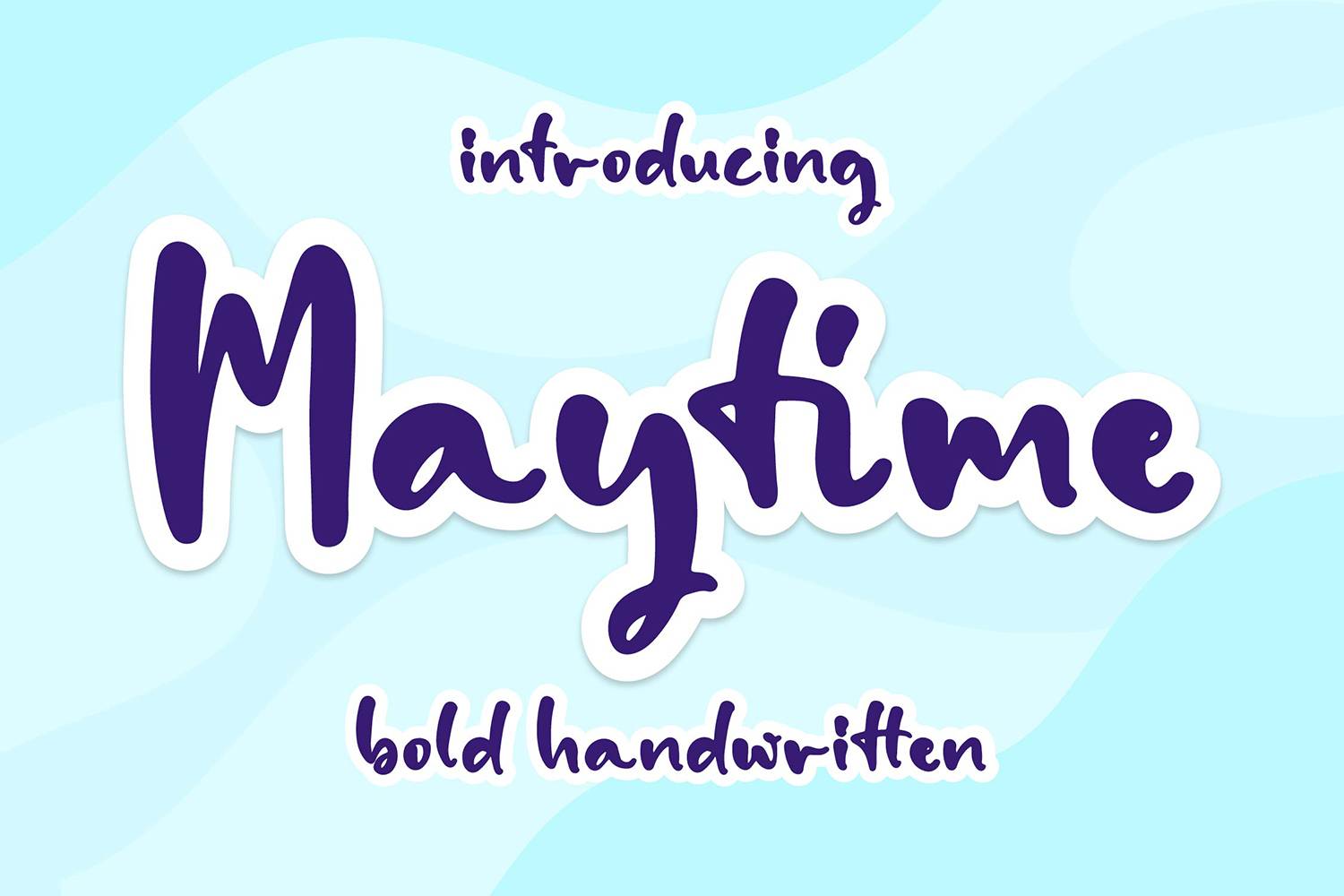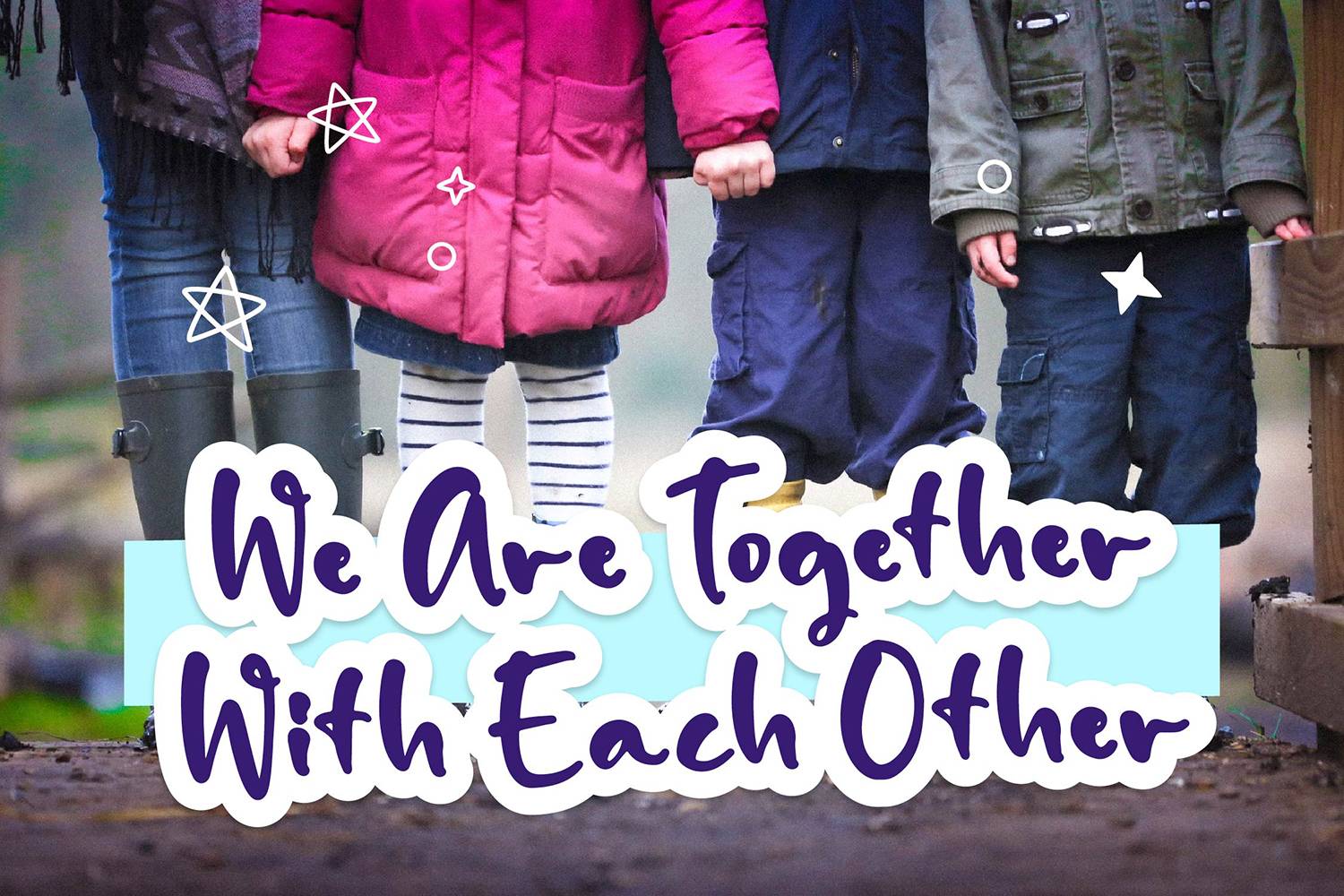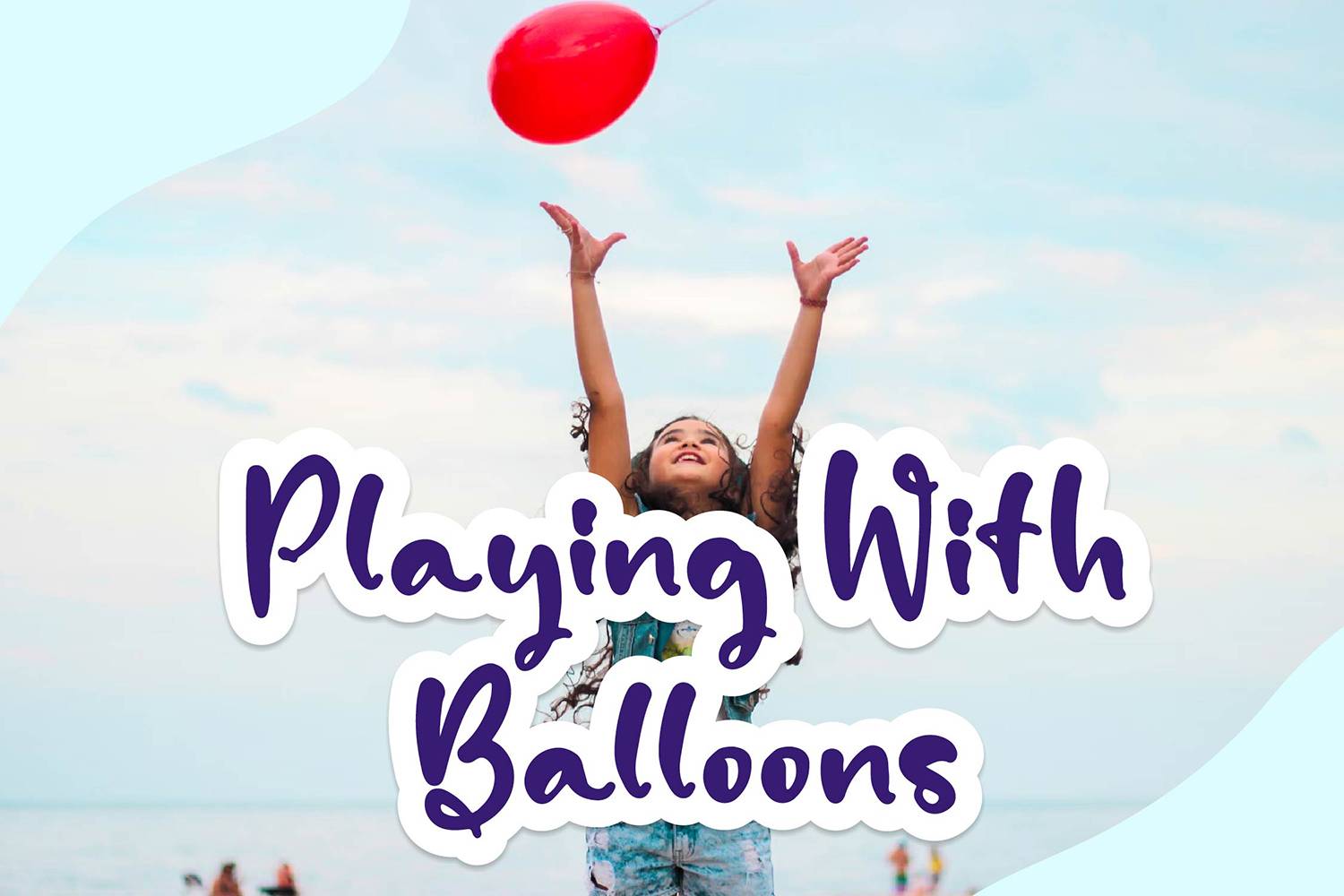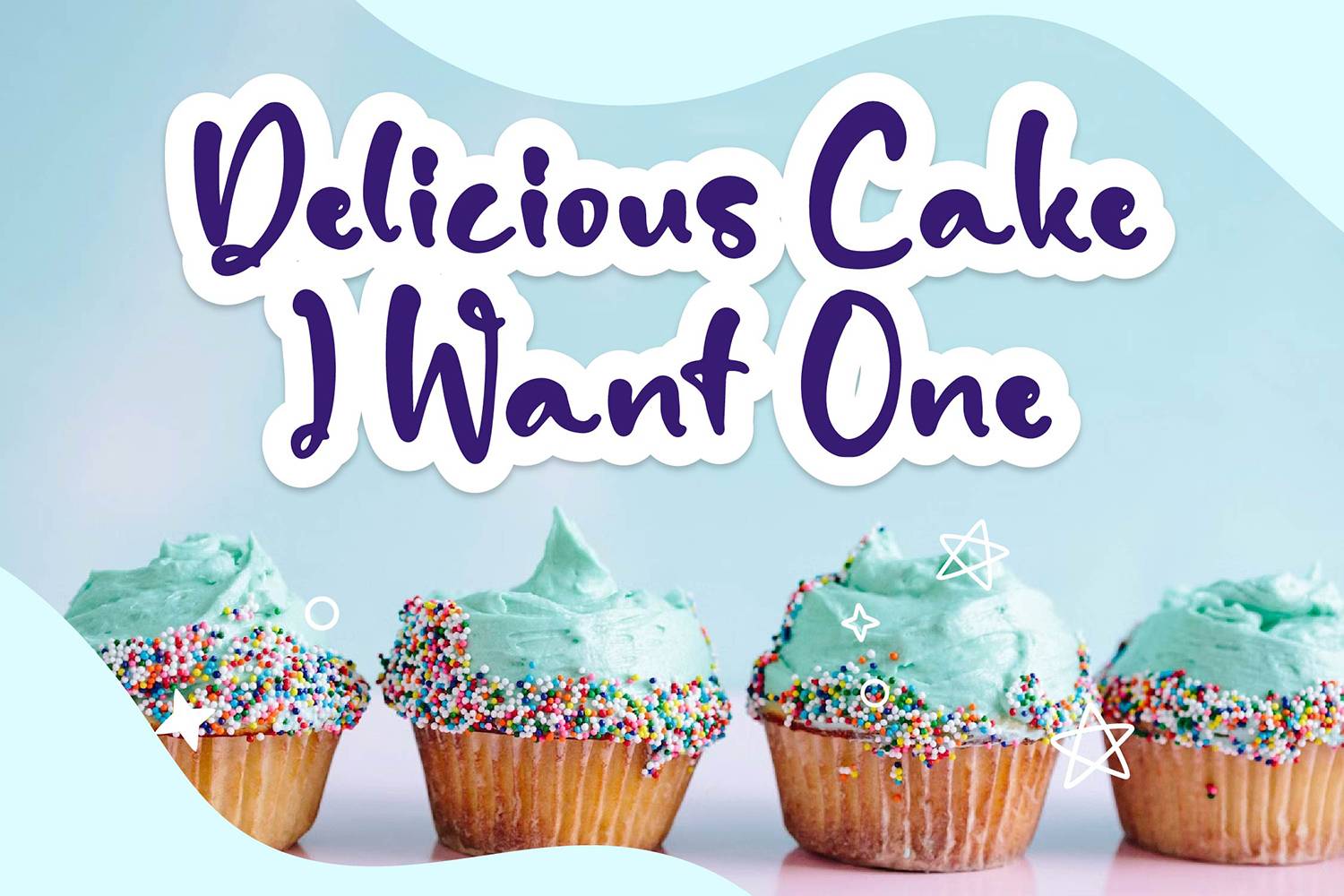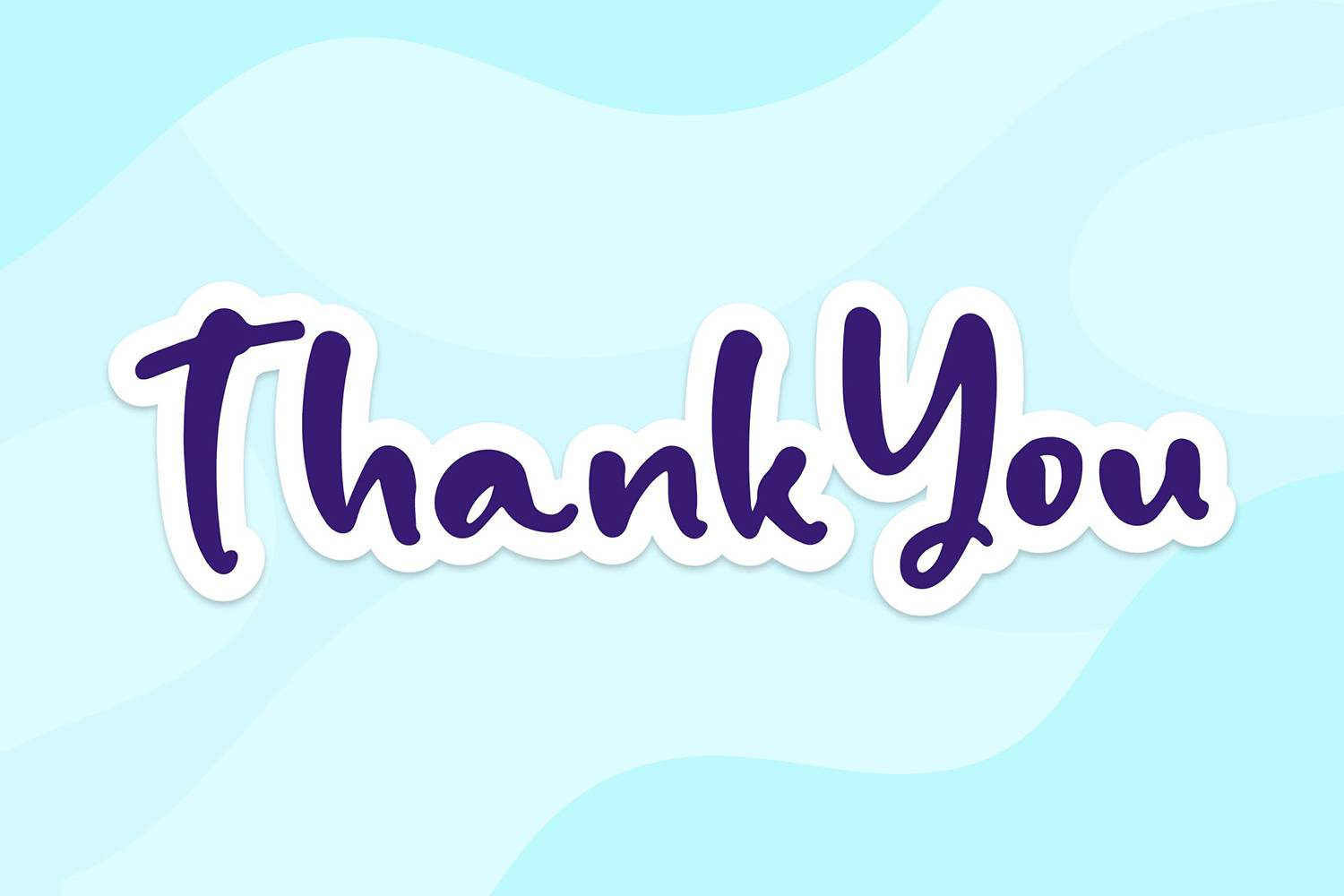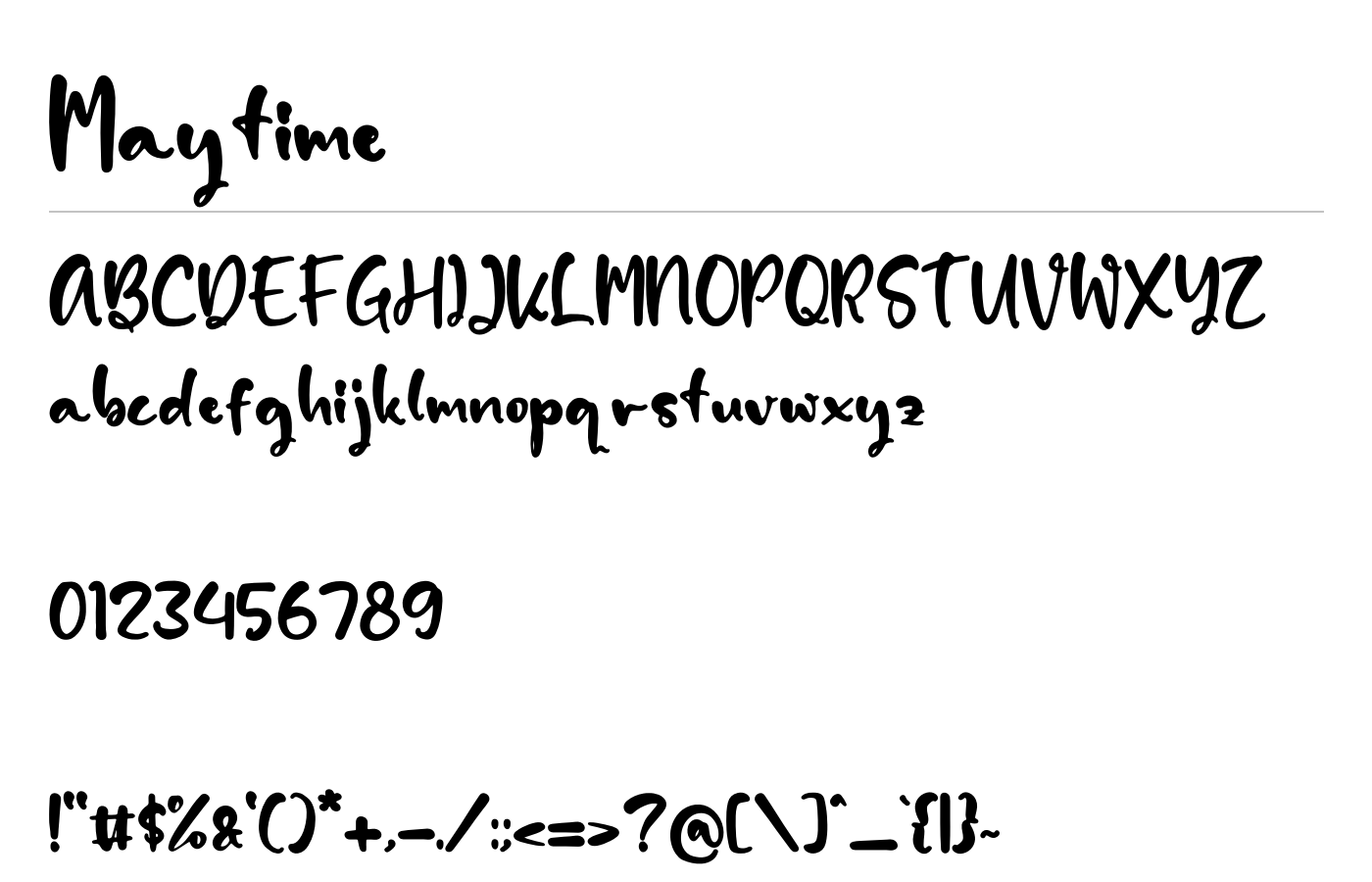
Maytime is a playful, handwritten script font that feels warm and casual with its slightly uneven strokes and rounded edges. Its bold, friendly letterforms with medium height and moderate spacing make it ideal for creative and informal uses like greeting cards, social media graphics, and fun branding projects. This font’s lively personality adds a personal, approachable touch to any design looking for a charming and inviting style.
Maytime Font
About Maytime Font